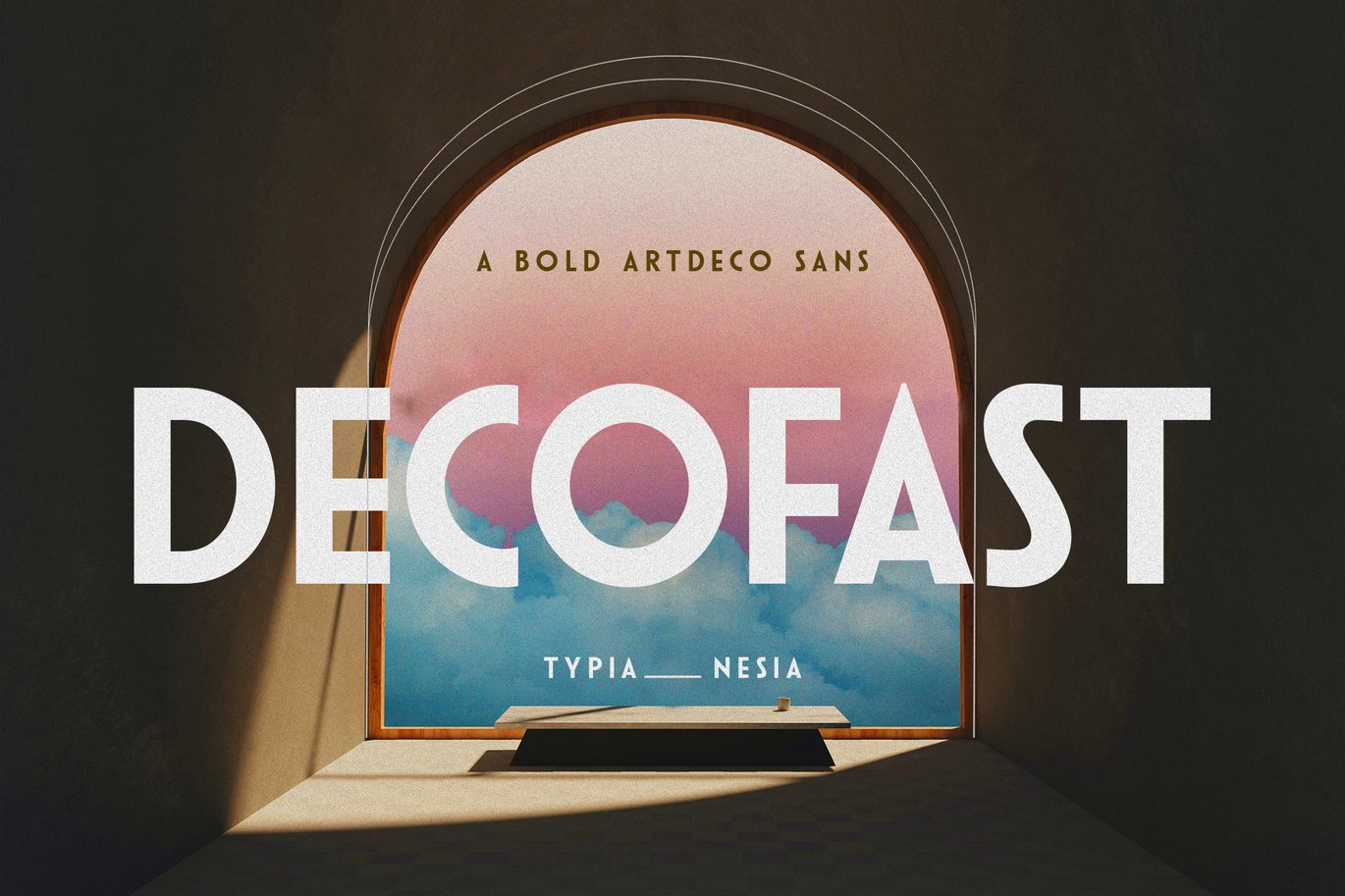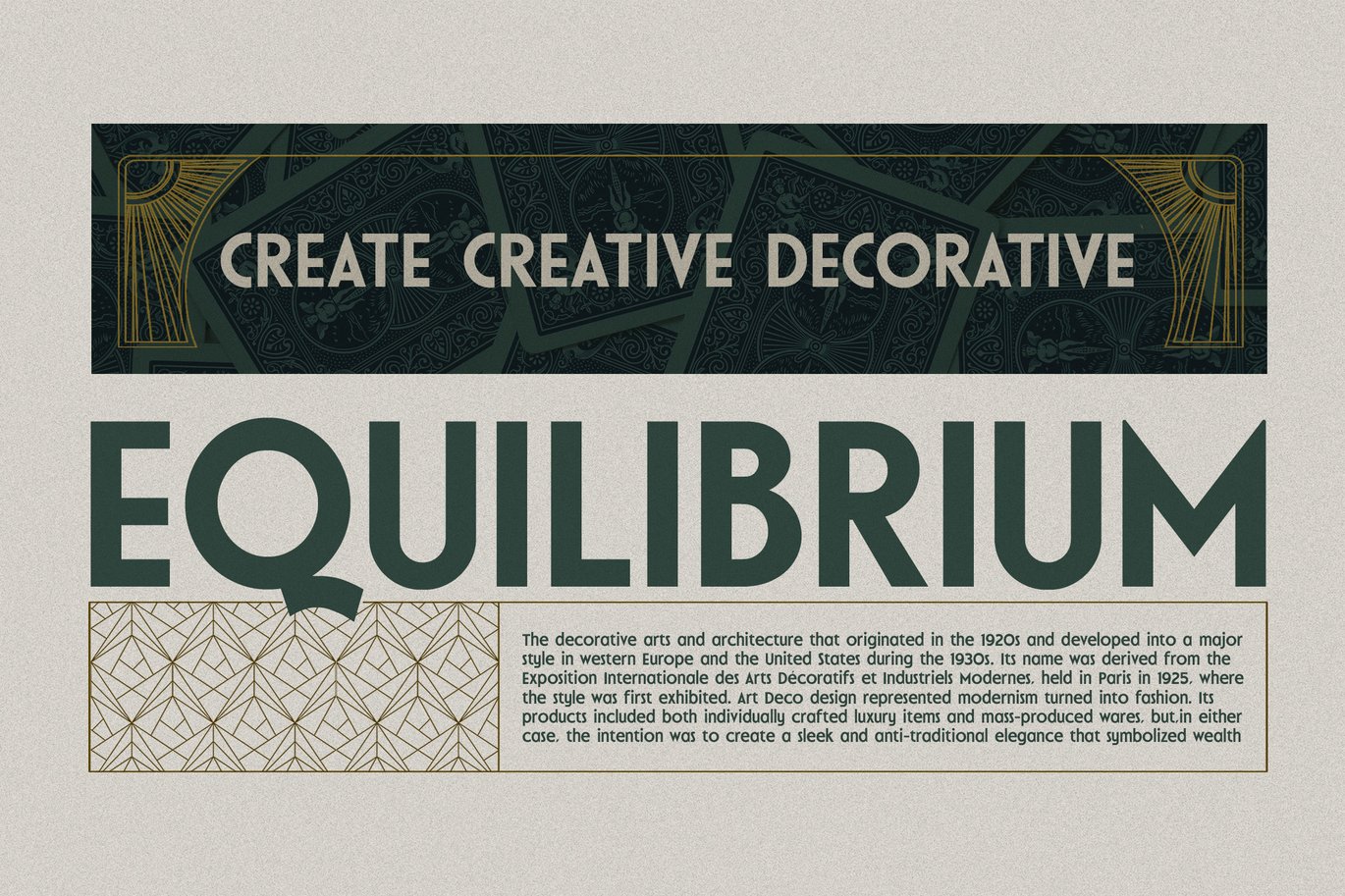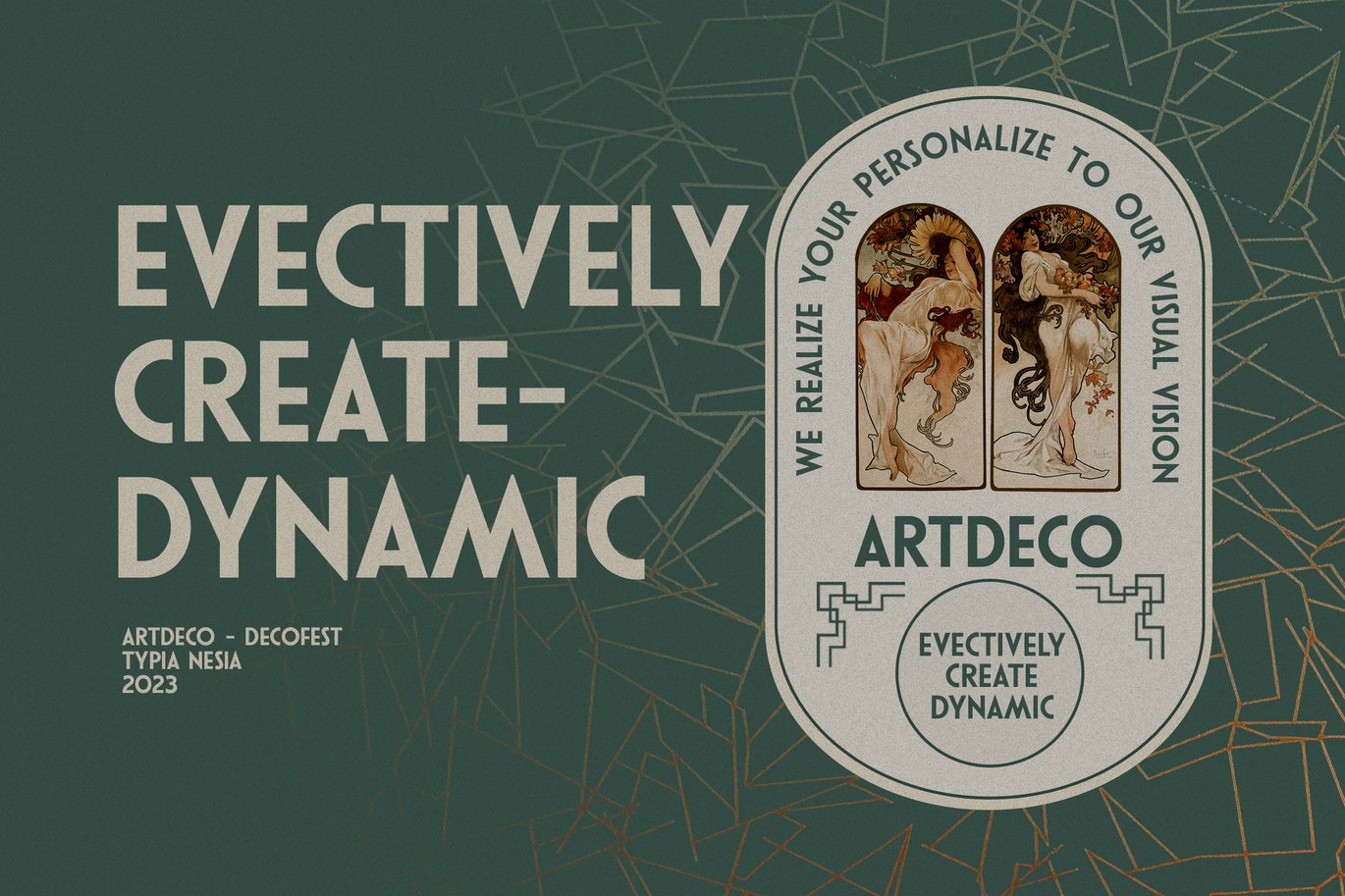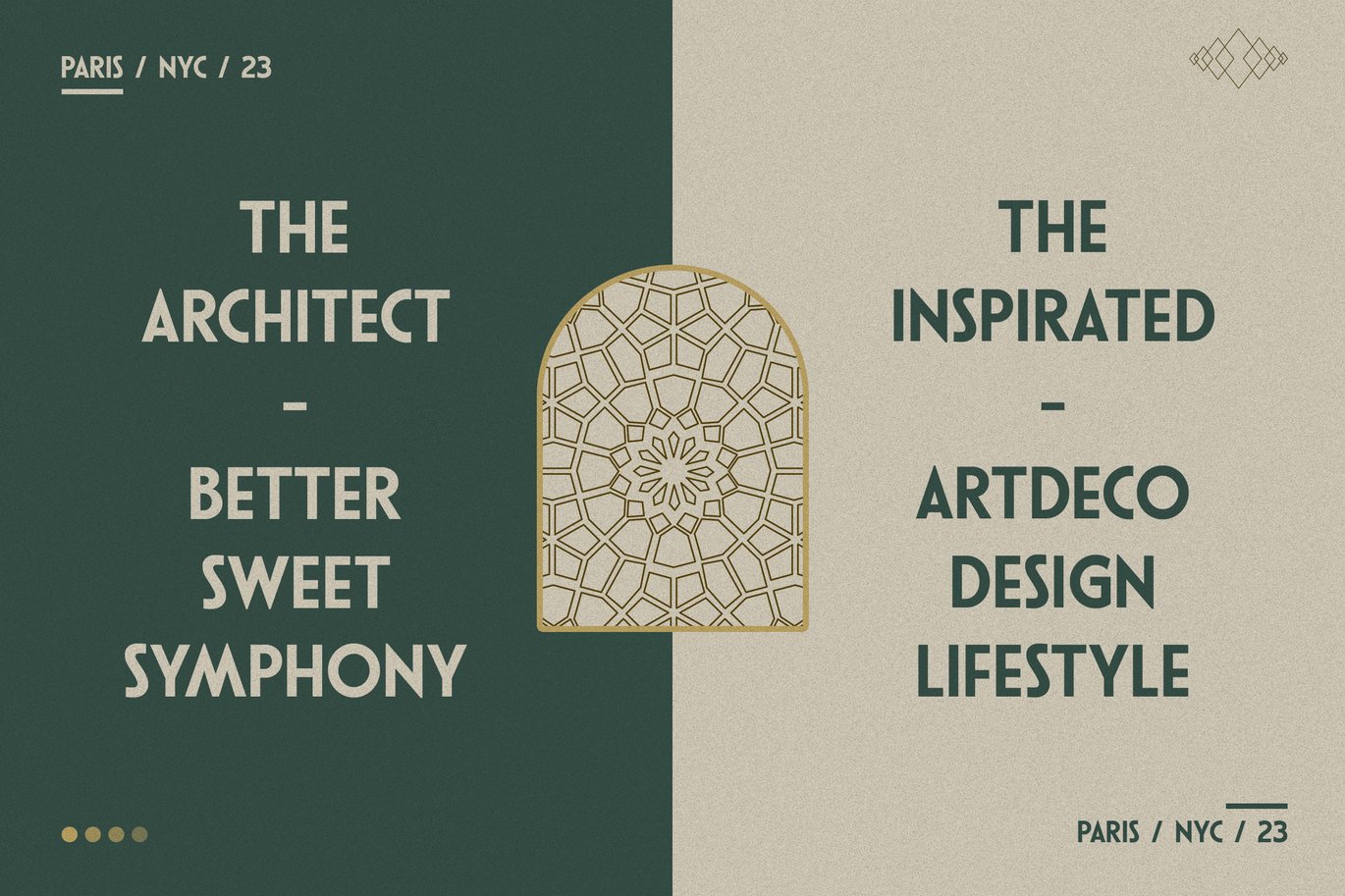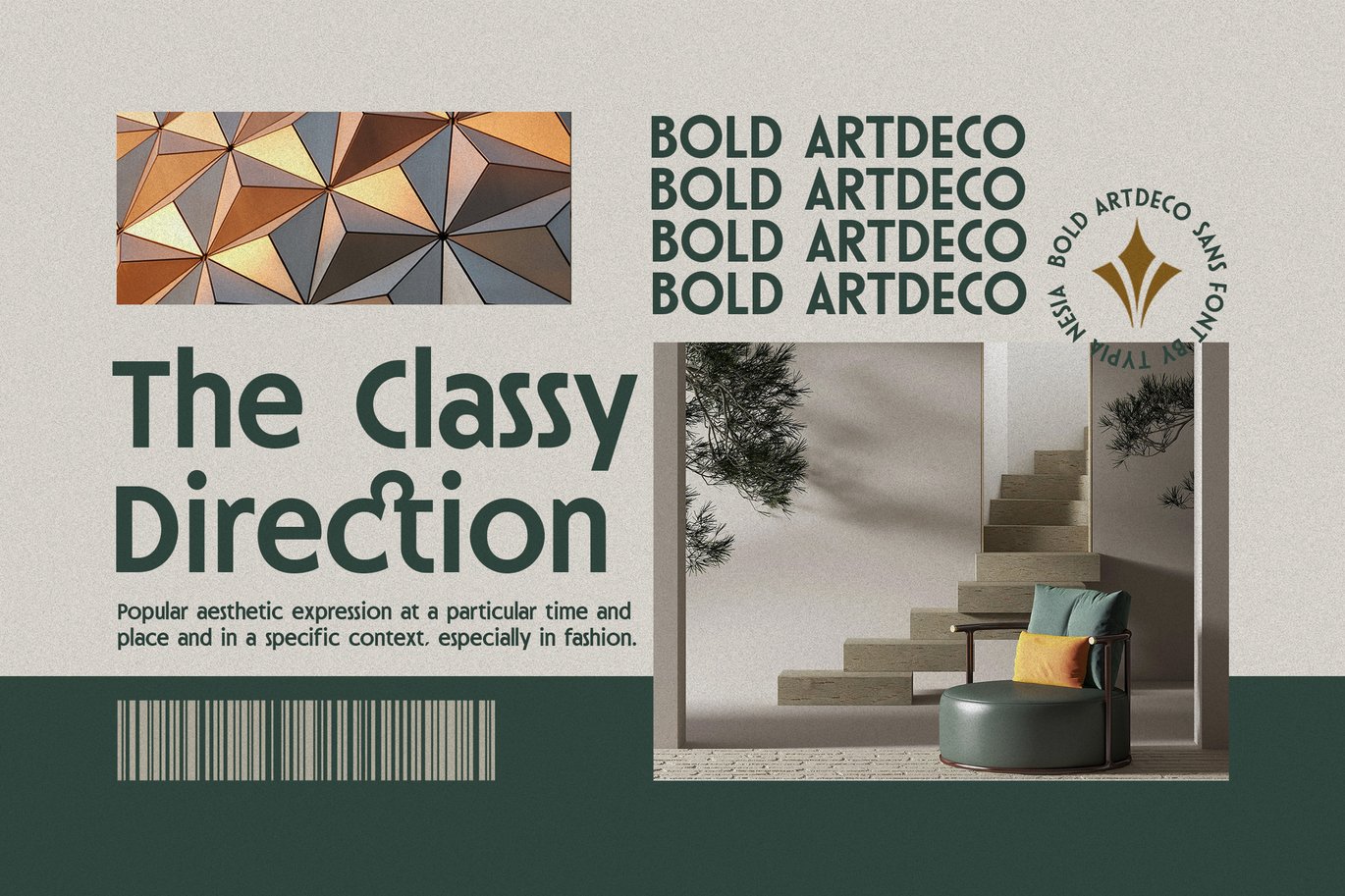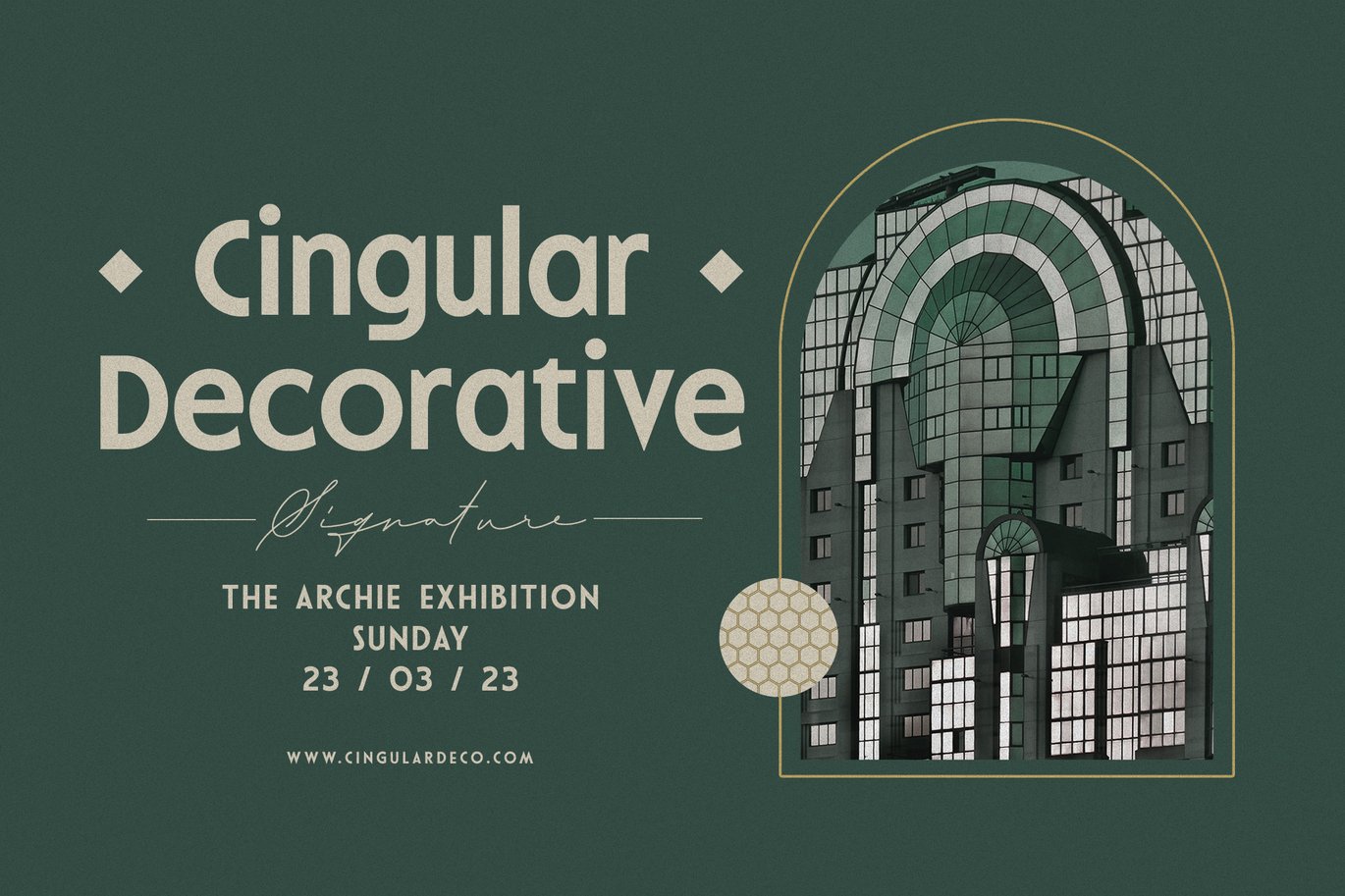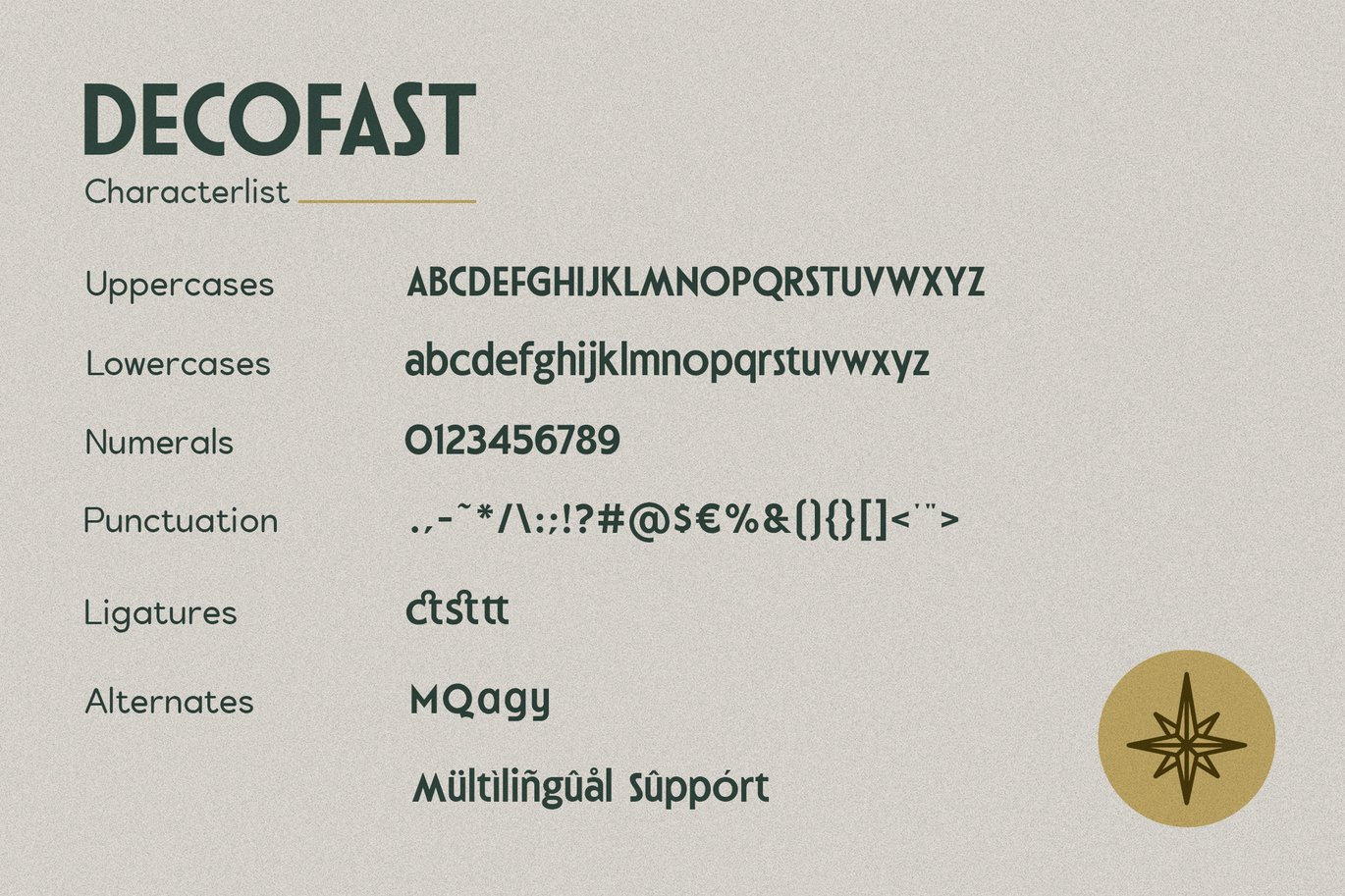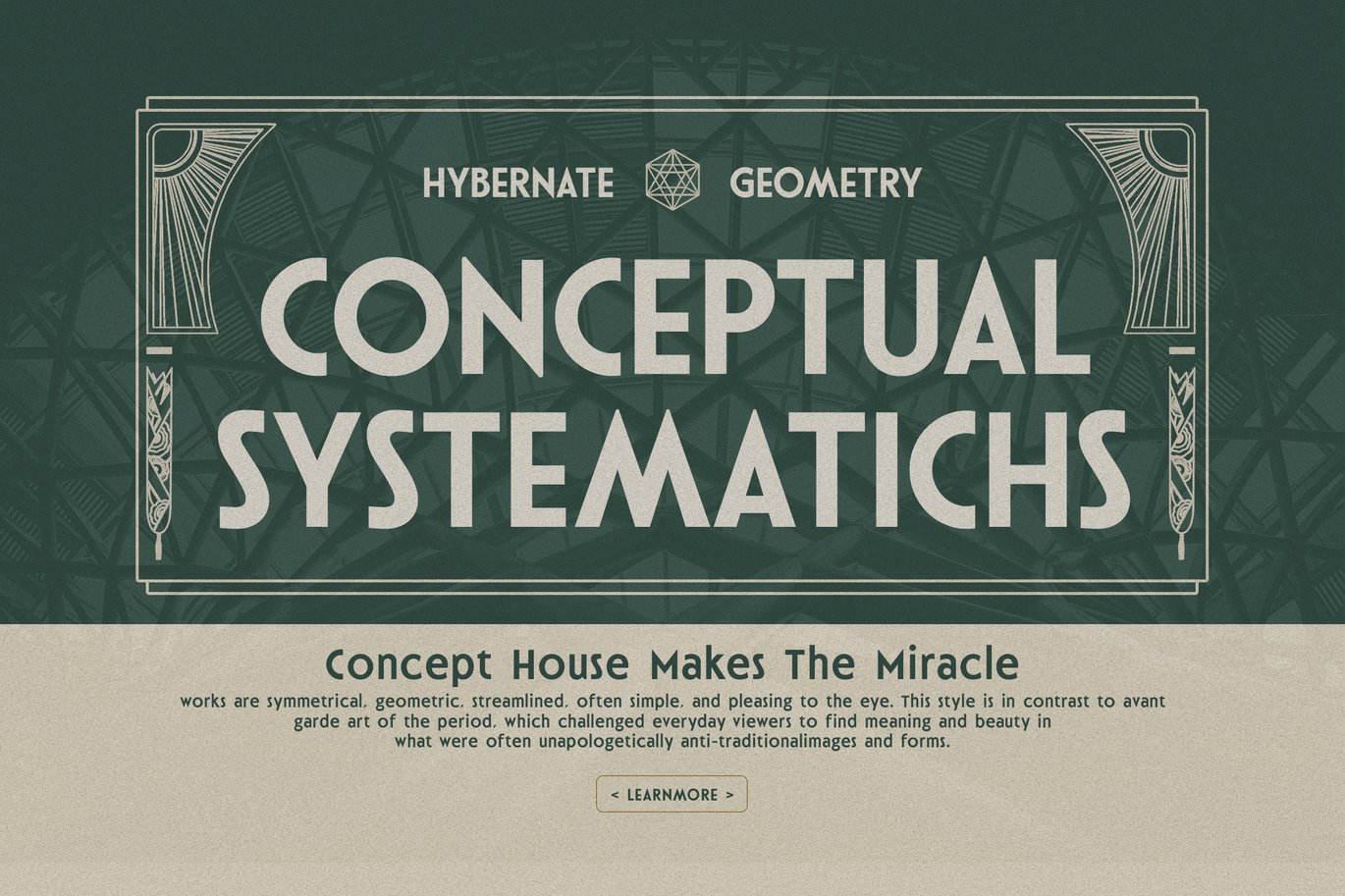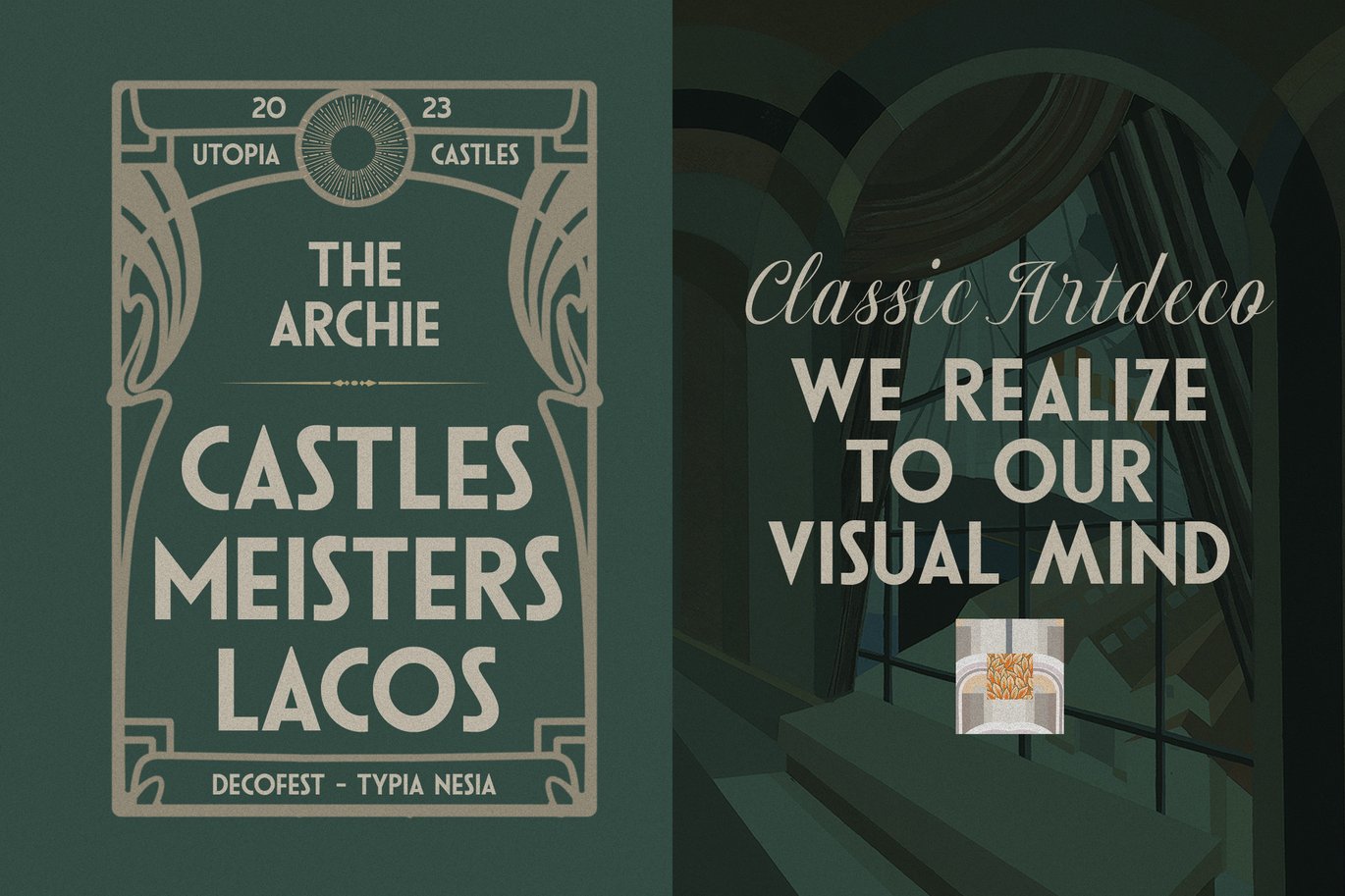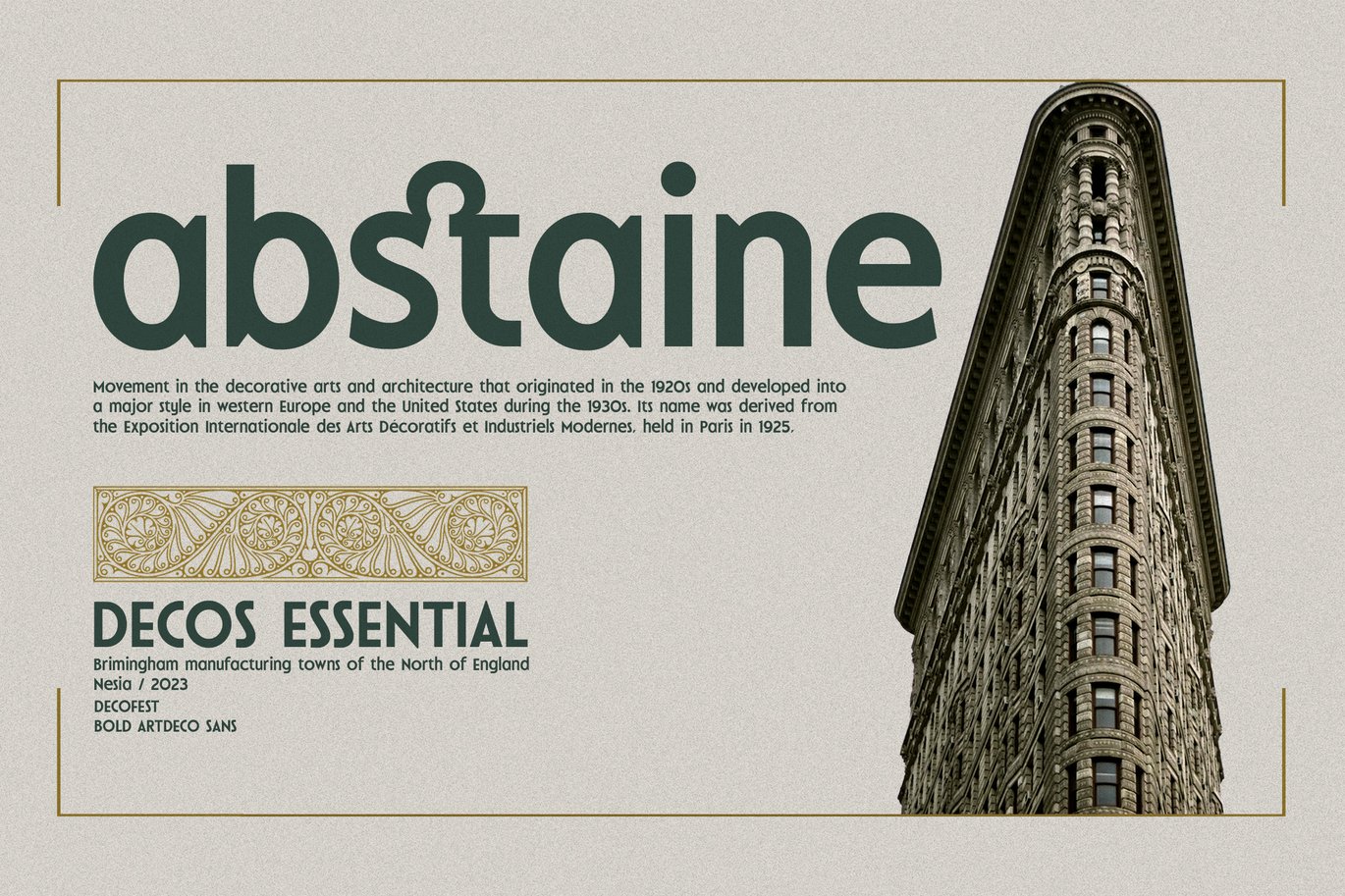
Decofast – Vintage Art Deco Sans Serif Font
Let Decofast Sans bring a touch of classic sophistication to your designs, inspired by the vintage charm of Art Deco.
Decofast Sans is an Art Deco-inspired sans-serif font that embodies the classic vintage style. This display font is perfect for creating designs that evoke the glamour and elegance of the Art Deco era. Decofast Sans is suitable for various applications, including branding, logos, packaging, posters, and any project that requires a touch of classic sophistication. It features clean lines, geometric shapes, and decorative elements that are characteristic of the Art Deco movement. With its expertise in capturing the essence of the vintage era, Decofast Sans brings a sense of timeless beauty and elegance to your designs.
Transport your designs to the Art Deco era with Decofast Sans and infuse them with classic vintage charm!